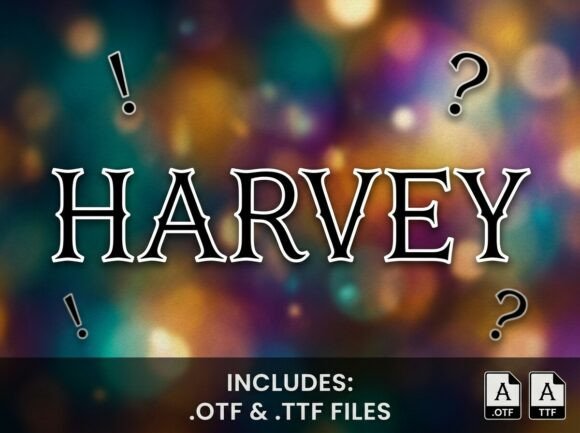
Unleash the Magic of Harvey Font: A Spirited Display Serif
Are you looking for a font that can add a touch of magic to your designs? Look no further than Harvey, a bold and enchanting display serif that captures the essence of a “mystical-and-mischievous” soul. With its unique blend of rhythmic, hand-drawn serifs and delicate white inline details, Harvey is the perfect choice for designers and crafters seeking to create eye-catching and captivating visual experiences.
The Inspiration Behind Harvey
Harvey Font draws inspiration from the classic typography of vintage circus posters and high-end magic show branding. Its bold, high-contrast letterforms are uniquely characterized by rhythmic, hand-drawn “spurred” serifs, which give the font its distinctive and enigmatic personality. The delicate white inline detail that traces the skeleton of every character adds an extra layer of sophistication and elegance, making Harvey a standout choice for designers seeking to create high-impact visual experiences.
Key Features of Harvey Font
• Bold and High-Contrast Letterforms: Harvey’s letterforms are designed to make a statement, with bold and high-contrast strokes that command attention.
• Rhythmic, Hand-Drawn Serifs: The font’s serifs are uniquely characterized by a rhythmic, hand-drawn quality that adds a touch of whimsy and personality to every character.
• Delicate White Inline Details: A delicate white inline detail traces the skeleton of every character, adding an extra layer of sophistication and elegance to the font.
• Heavy Structural Weight: Harvey’s heavy structural weight makes it perfect for creating high-impact visual experiences, from theatrical event titles to social media headers.
Perfect for Independent Entertainment Branding
Harvey Font is the premier choice for independent entertainment branding, artisanal toy packaging, theatrical event titles, and high-impact social media headers. Its enigmatic personality and bold, eye-catching design make it perfect for creating captivating visual experiences that leave a lasting impression. Whether you’re designing a logo for a theatrical production, creating packaging for a unique toy, or crafting social media headers that demand attention, Harvey is the perfect font to unleash a touch of magic into your designs.
Design and Crafting Applications
Harvey Font is versatile and can be applied to a wide range of design and crafting projects, including:
• Theatrical Event Titles: Create eye-catching titles for theatrical productions, from plays and musicals to magic shows and circus performances.
• Artisanal Toy Packaging: Add a touch of magic to your toy packaging with Harvey’s bold and whimsical design.
• Social Media Headers: Create high-impact social media headers that demand attention and leave a lasting impression.
• Independent Entertainment Branding: Use Harvey to create captivating logos and branding materials for independent entertainment ventures, from theaters and production companies to music labels and art galleries.
In conclusion, Harvey Font is a spirited display serif that can add a touch of magic to your designs. With its bold, high-contrast letterforms, rhythmic hand-drawn serifs, and delicate white inline details, Harvey is the perfect choice for designers and crafters seeking to create captivating visual experiences. Whether you’re designing for independent entertainment branding, artisanal toy packaging, theatrical event titles, or high-impact social media headers, Harvey is the premier font to unleash a touch of magic into your designs.